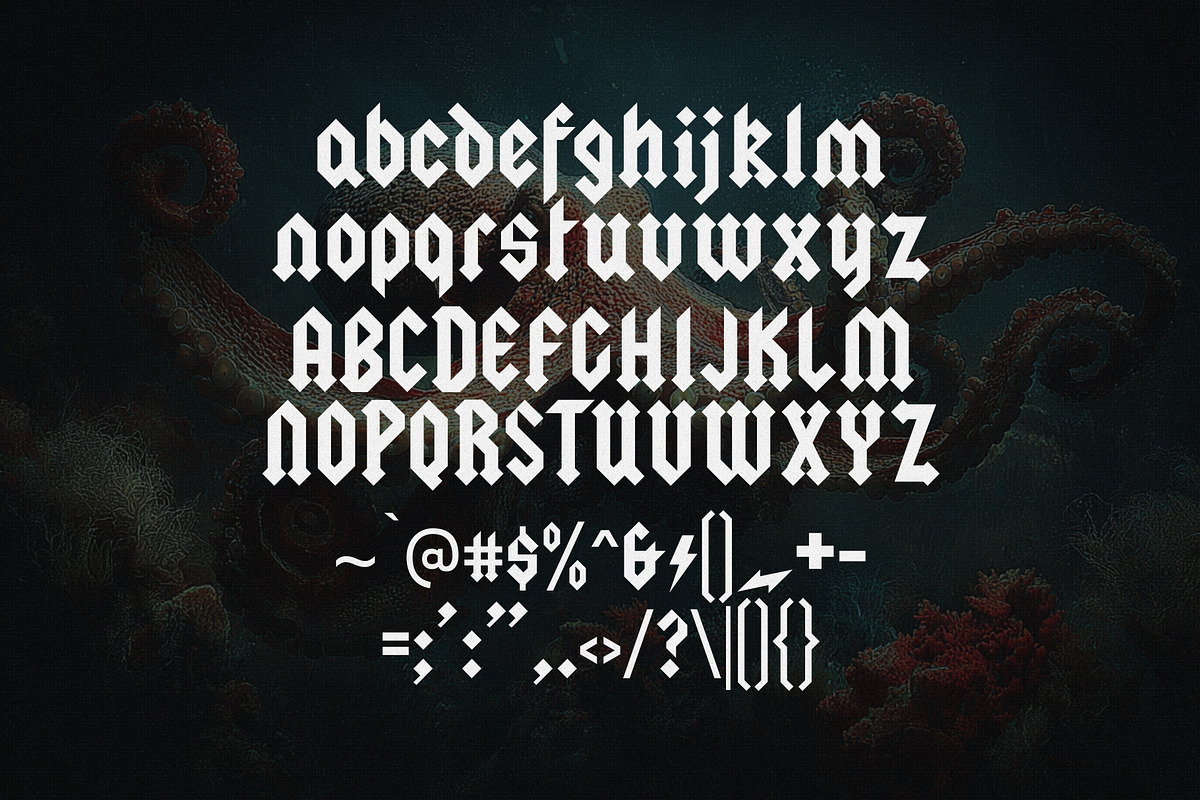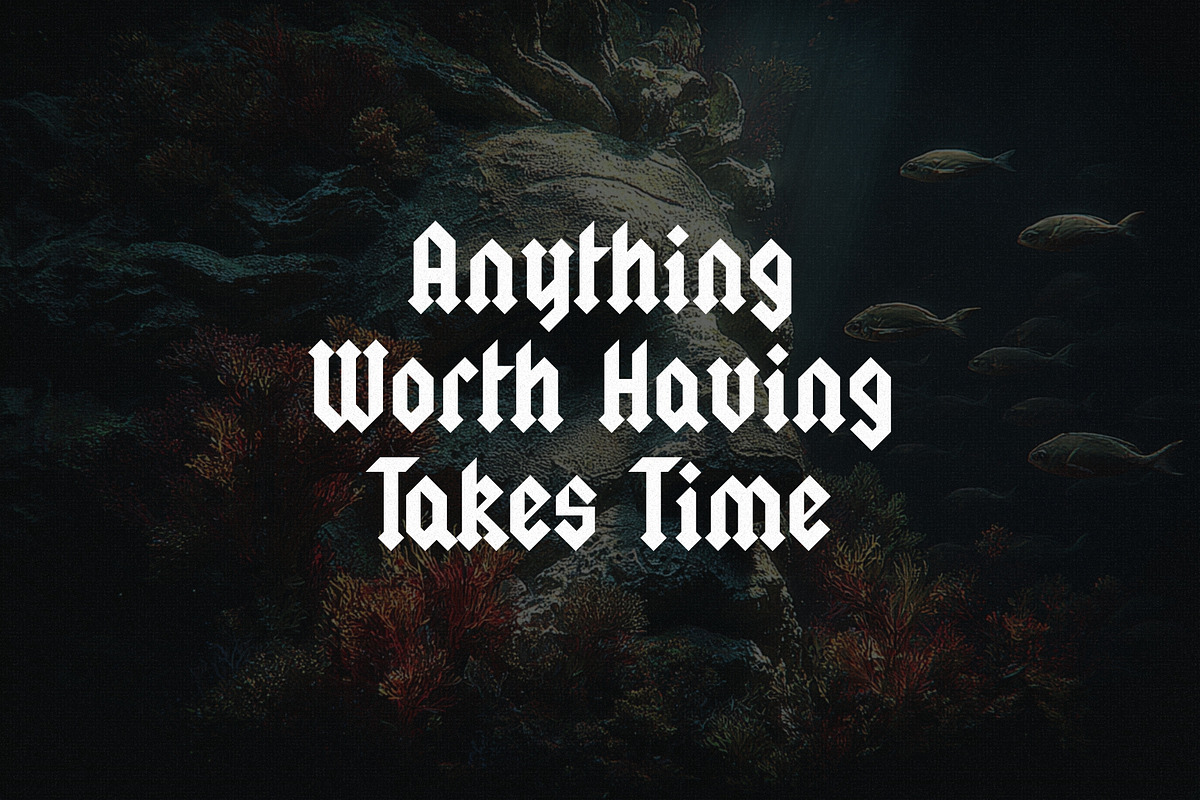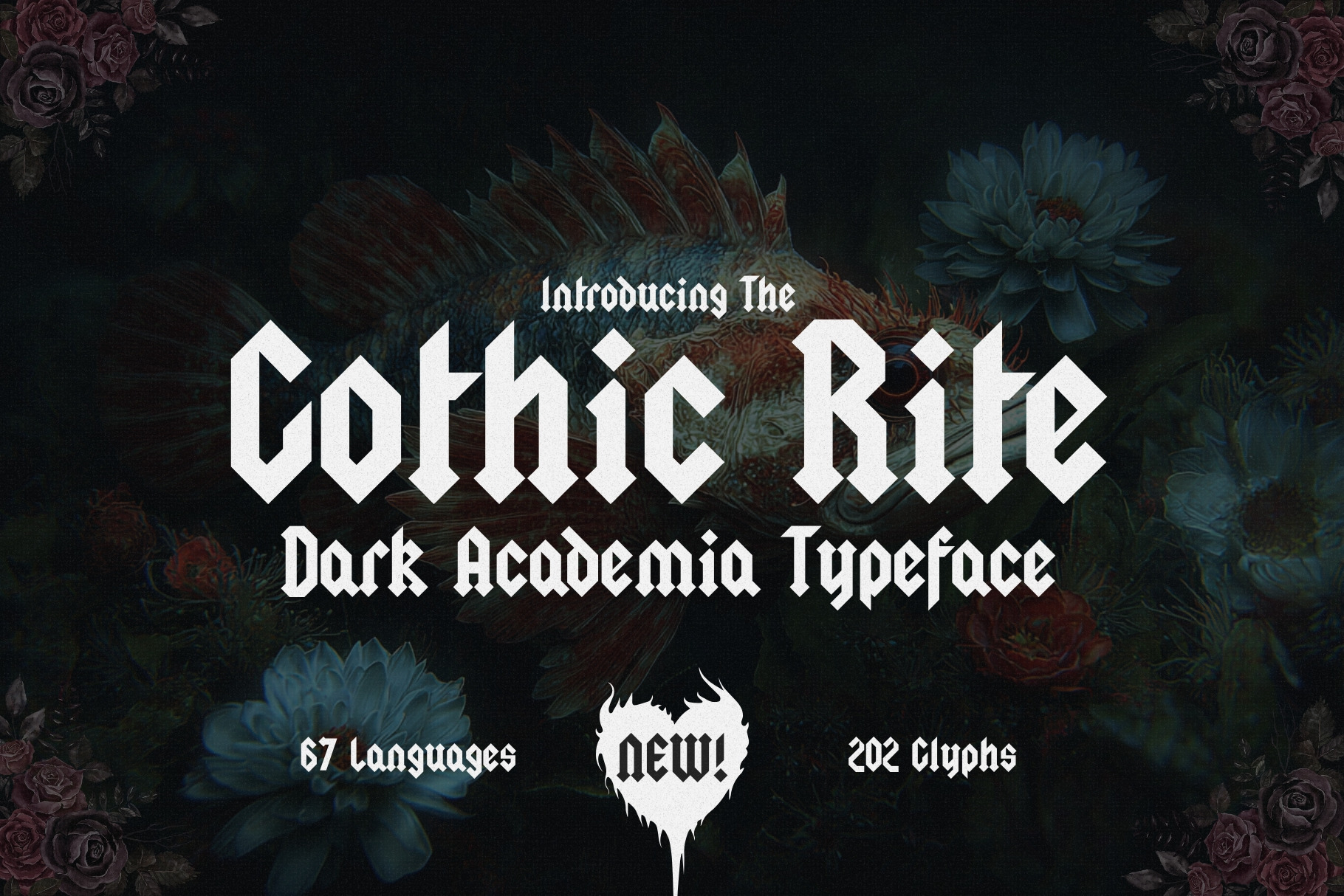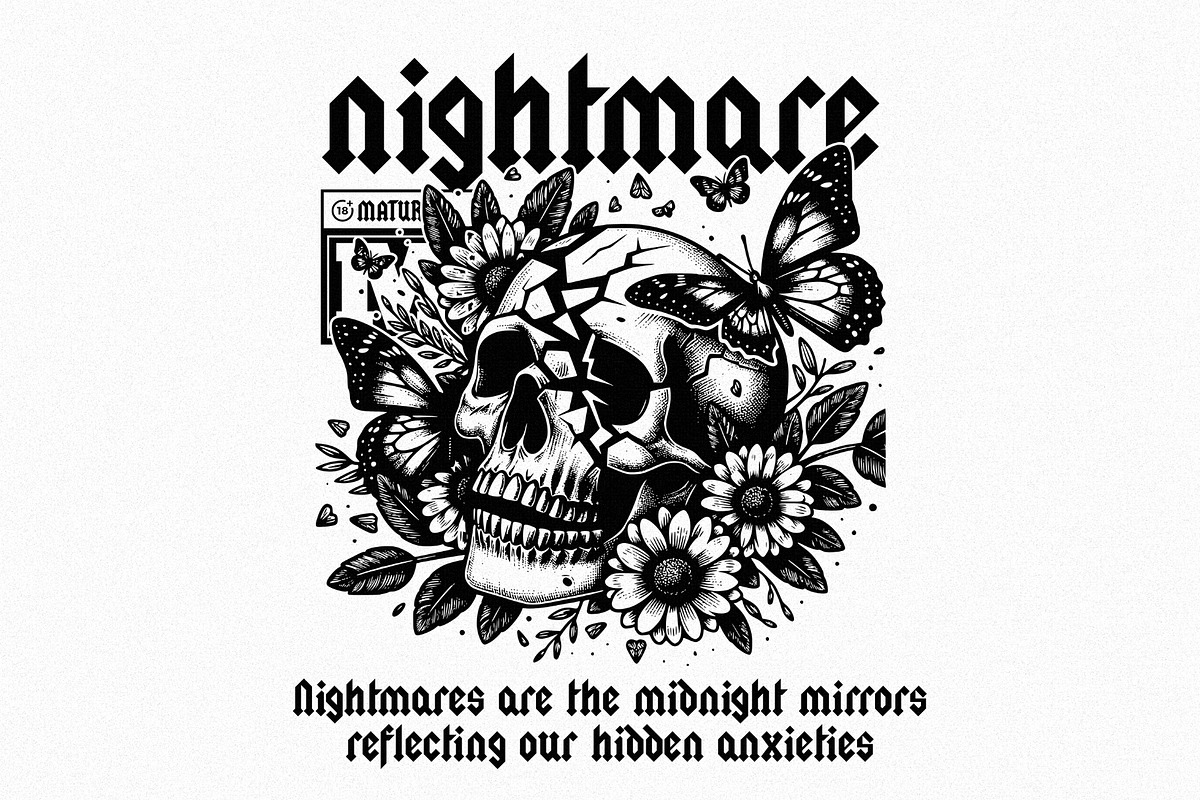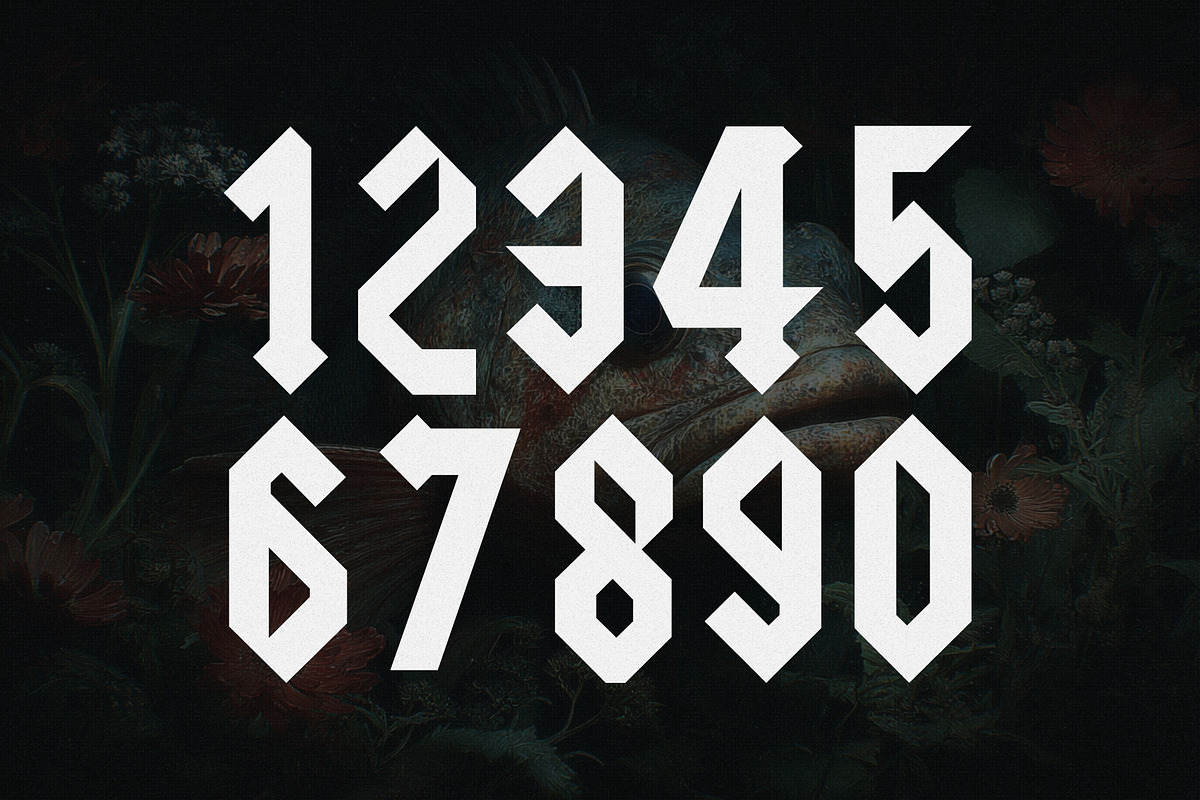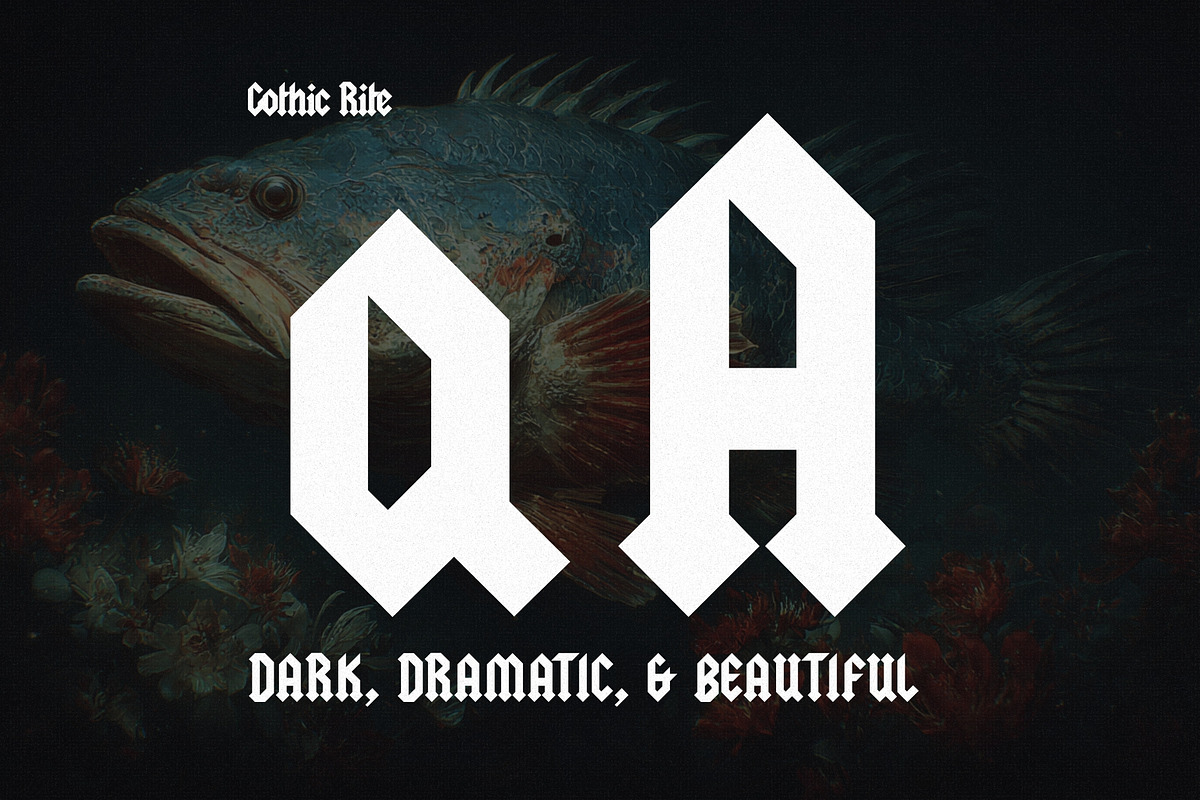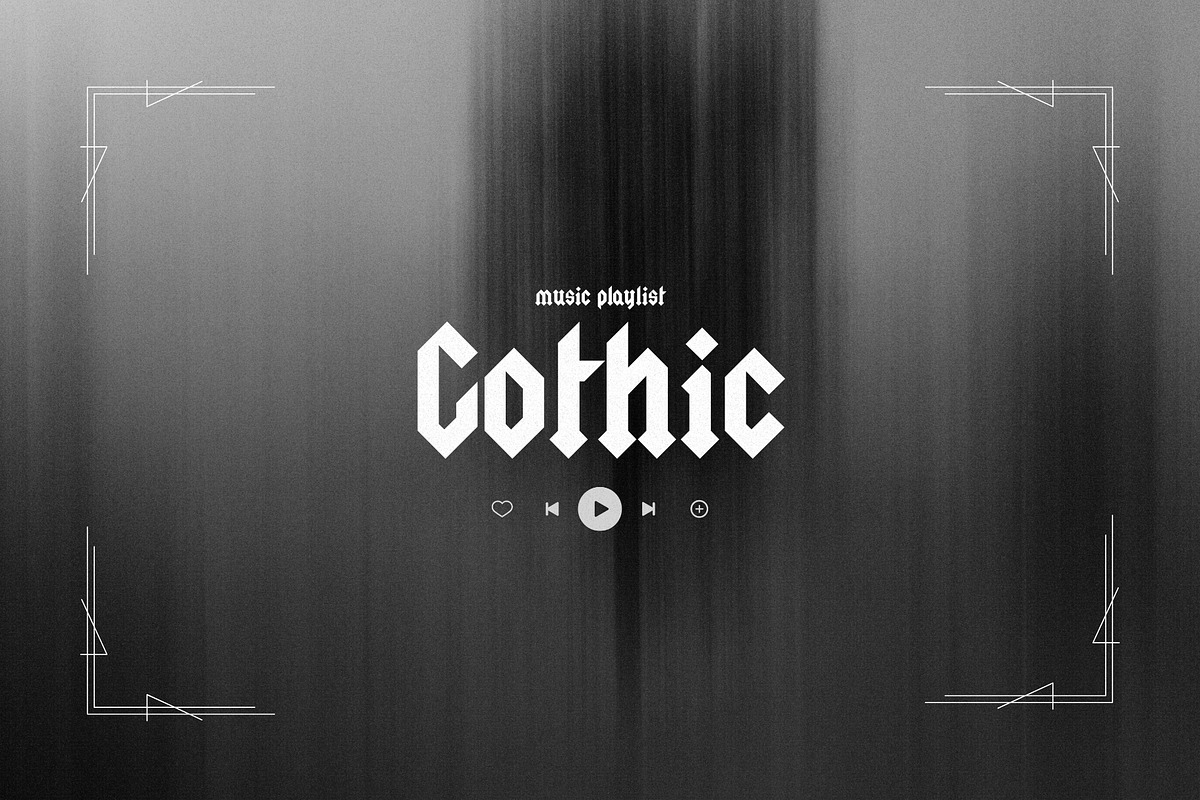
The Gothic Rite - Dark Academia Font
Step into the shadows of intellect and artistry with The Gothic Rite, a striking blackletter typeface born from the soul of dark academia. With its 202 glyphs and support for 67 languages, this typeface is more than just lettering, it's an aesthetic, a ritual, a symbol of timeless rebellion and mystery.
Sharp, geometrical, and meticulously crafted, The Gothic Rite evokes the architecture of cathedrals, the ink of ancient grimoires, and the edge of forgotten rites. Every letter carries weight, drama, and a haunting beauty that makes it ideal for gothic branding, book covers, academic posters, occult symbolism, band logos, fashion editorials, and more.
Whether you're crafting a journal of lost knowledge or a candlelit zine of poetic despair, The Gothic Rite delivers elegance in darkness, perfect for creators who dare to make a bold and moody statement.